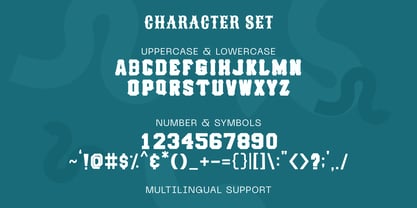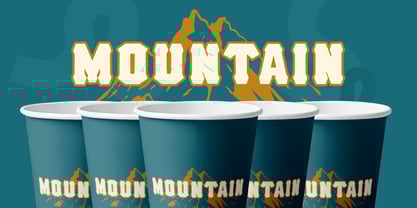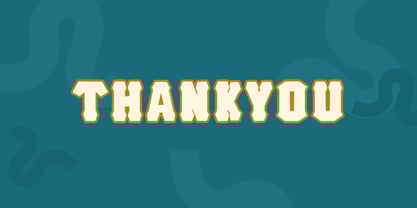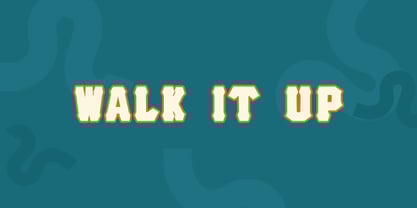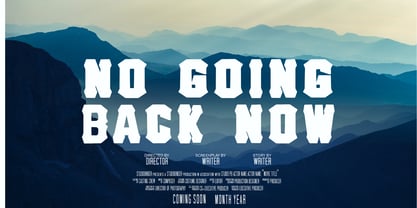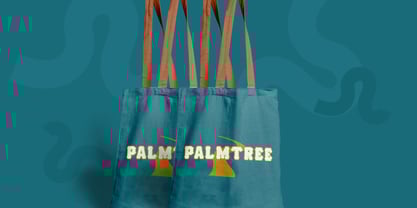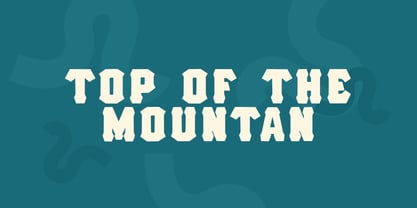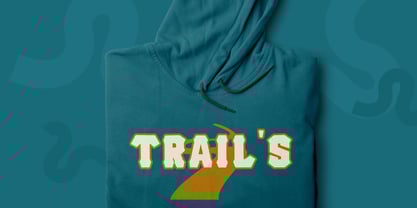
Hell Forge
by DM Studio
The Hell Forge Font Family was designed by Dimas Prasetyo and published by DM Studio. Hell Forge contains 1 styles.
Meet Hell Forge, the Brutal Metal Display Font Hell Forge is a heavy metal display font forged with raw power and aggressive attitude. The letterforms feel sharp, rugged, and battle-tested, like typography hammered from molten steel. Every character carries a dark energy that makes designs look intense and unforgettable. Use Hell Forge for metal band logos, gaming graphics, horror posters, tattoo branding, album covers, esports designs, and bold merch. As a result, your typography feels powerful, dark, and instantly commanding.   Why Hell Forge sells First, Hell Forge installs quickly and works smoothly in Canva, Photoshop, and Illustrator. Next, the strong angular structure holds up well in bold layouts, distressed textures, and dark themes. Then your designs come together faster because the heavy style already delivers attitude without needing complex effects. Moreover, metal, gothic, and horror aesthetics remain popular across music, gaming, and alternative culture niches. Therefore, Hell Forge fits perfectly into aggressive display font collections.   Fast layouts with the Hell Forge Font Start with strong, impactful words to capture attention immediately. After that, add metallic textures, fire glows, or grunge overlays to enhance the forged metal vibe. Because the letterforms are bold and detailed, keep backgrounds dark or simple for better readability. In addition, pair it with a clean condensed sans serif for supporting information. Finally, try palettes like black and crimson, silver and charcoal, fire orange and dark gray, or blood red and steel for dramatic impact.   Creative uses and quick wins Metal band logos and album artwork Gaming thumbnails and esports branding Horror movie posters and event flyers Tattoo shop logos and alternative merch   What you get Uppercase and lowercase letters Numbers and basic punctuation   Design tips for Hell Forge Use Hell Forge for headlines, logos, and titles instead of long paragraphs. Also, experiment with metallic textures, flames, or cracked stone backgrounds for stronger visual drama. For print, test high-contrast colors to keep the shapes clear. For digital projects, scale slightly larger so sharp edges remain crisp on smaller screens. Finally, combine it with grunge textures, lightning effects, or gothic symbols to amplify the heavy metal atmosphere.
Designers: Dimas Prasetyo
Publisher: DM Studio
Foundry: DM Studio